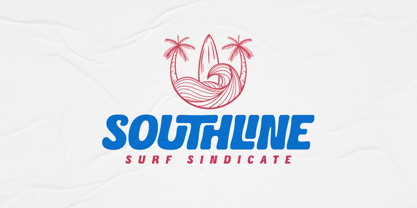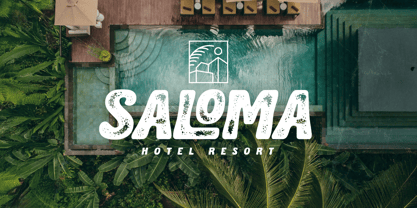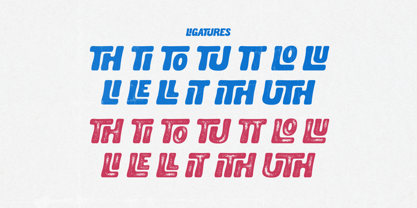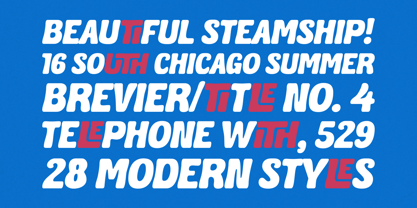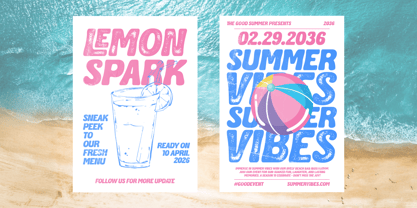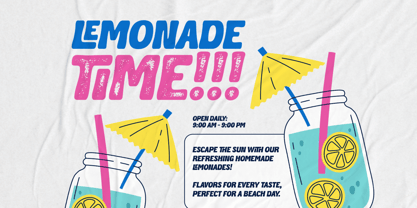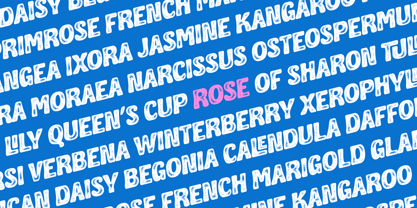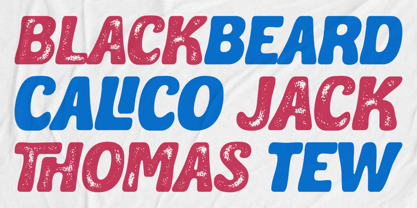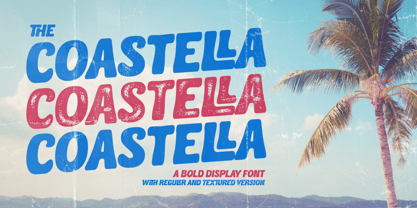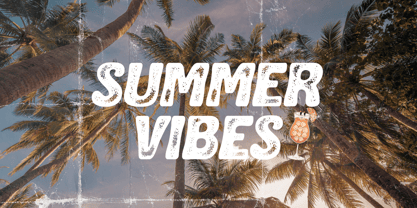
Coastella
by Jinan Studio
The Coastella Font Family was designed by Andi Syahdang, Ainun Jinan and published by Jinan Studio. Coastella contains 2 styles and family package options. More about this family
Coastline is a bold and carefree display font inspired by sunny beaches, ocean breezes, and retro summer postcards. With its chunky curves and playful energy, this typeface brings a fun, adventurous vibe to any design. It comes in Regular and Textured styles, giving you the freedom to choose between a clean, solid look or a distressed, sun-faded effect. Perfect for posters, travel branding, surf-themed graphics, packaging, social media titles, logos, and anything that needs a bright, summer spirit. Let Coastline bring that warm holiday feeling straight into your creative projects.
Designers: Andi Syahdang, Ainun Jinan
Foundry: Jinan Studio